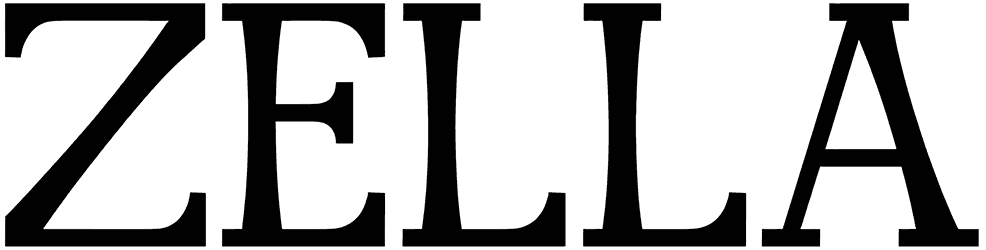
Zella Font
Giving a royal and classic face to your words would play a vital part in impressing your visitors, and this newspaper font can easily do it. The unique form of letters can capture a lot of attention, and keep in mind that it has an A-Z cover of characters. Just apply the Zella font on your fashion event flyer or anything else and mesmerize your followers.